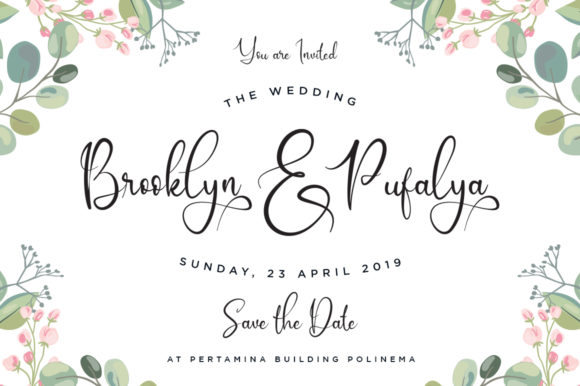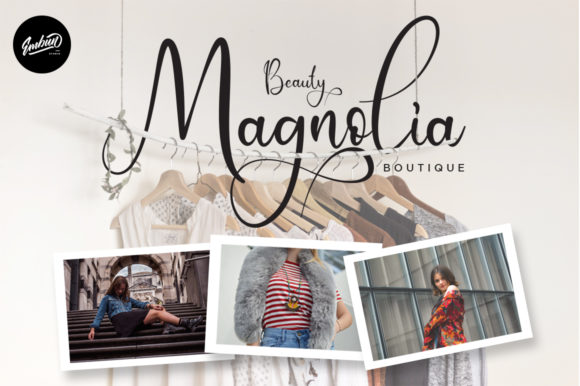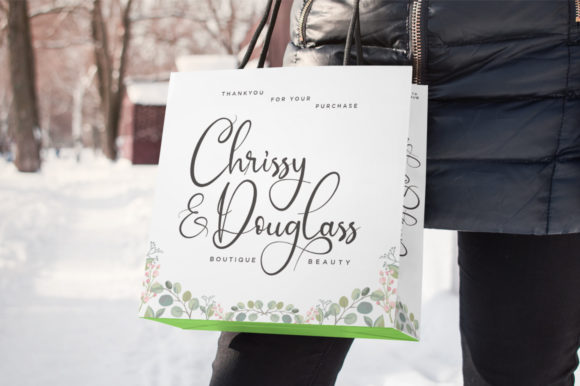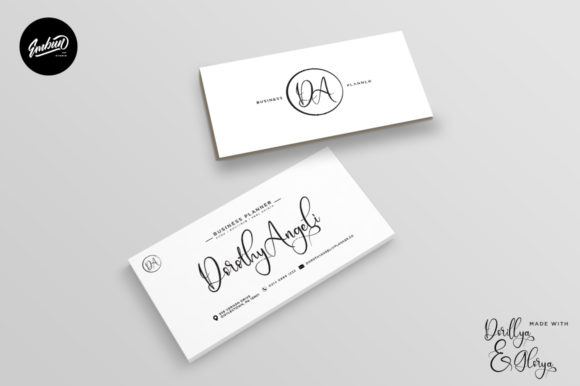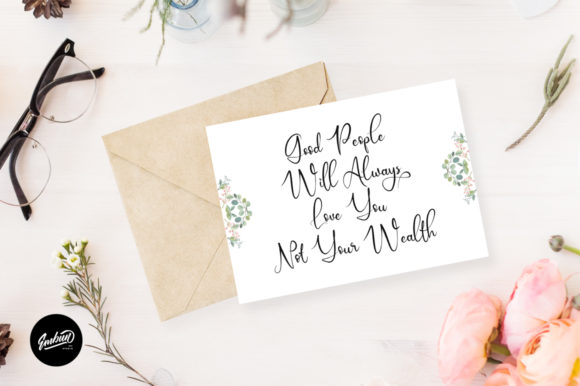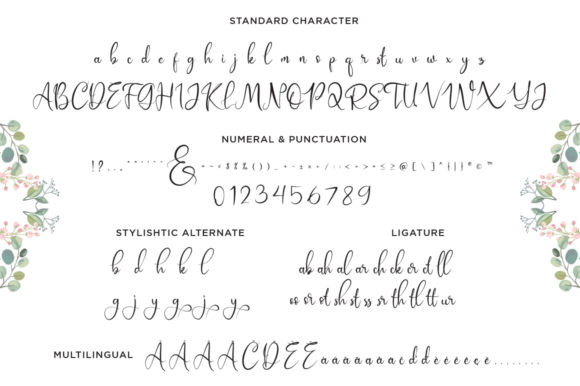
Dorillya & Glorya Font
Dorillya & Glorya pays tribute to classic calligraphy with its gorgeous swashes and alternates. Get inspired by its unique charm, and turn any design idea into a true standout!